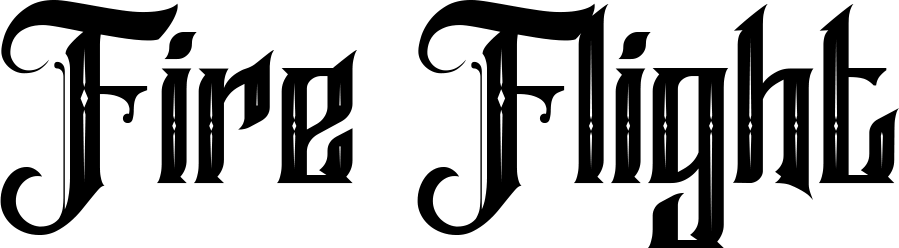
Fire Flight Font
Are you ready to inspire your clients? If so, Fire Flight is an amazing pickup for you! Leave your project to this gothic font and consider it done. It comes in sharp and flowing characters and works perfectly for logos, posters, flyers, and so on. Note that this one doesn’t offer punctuation and numbers.